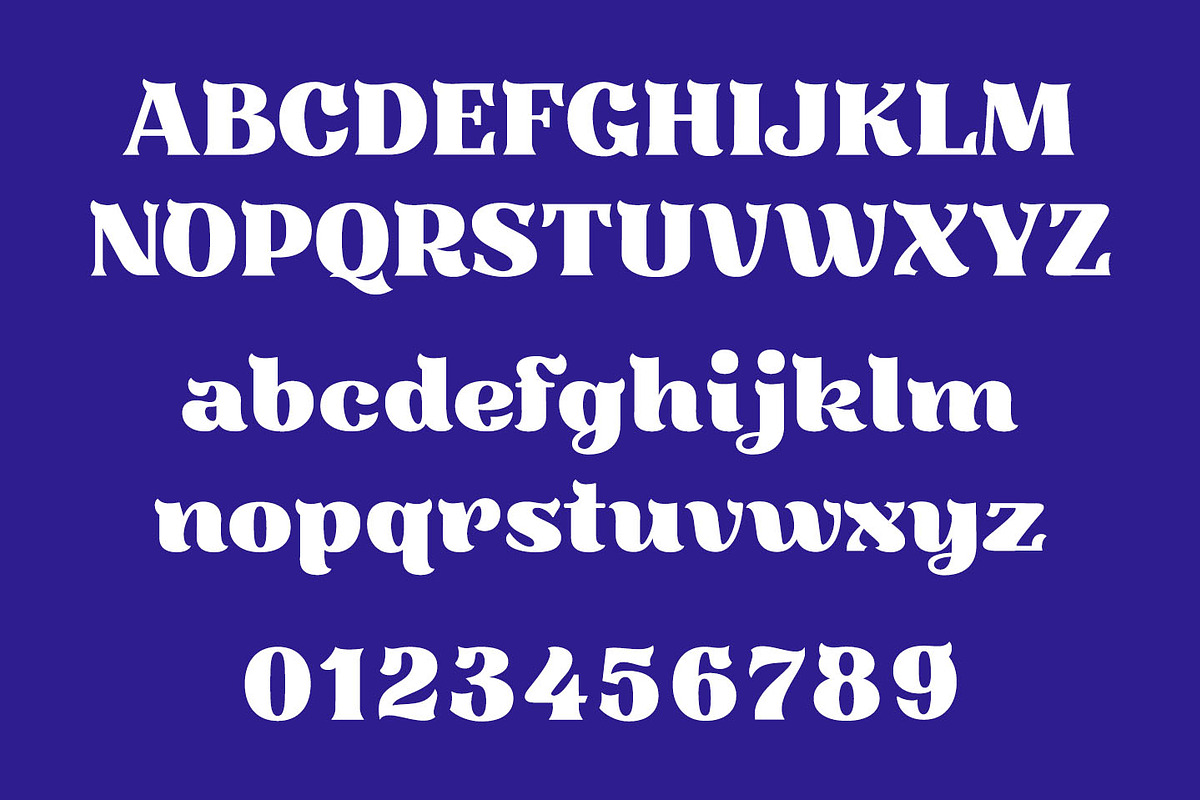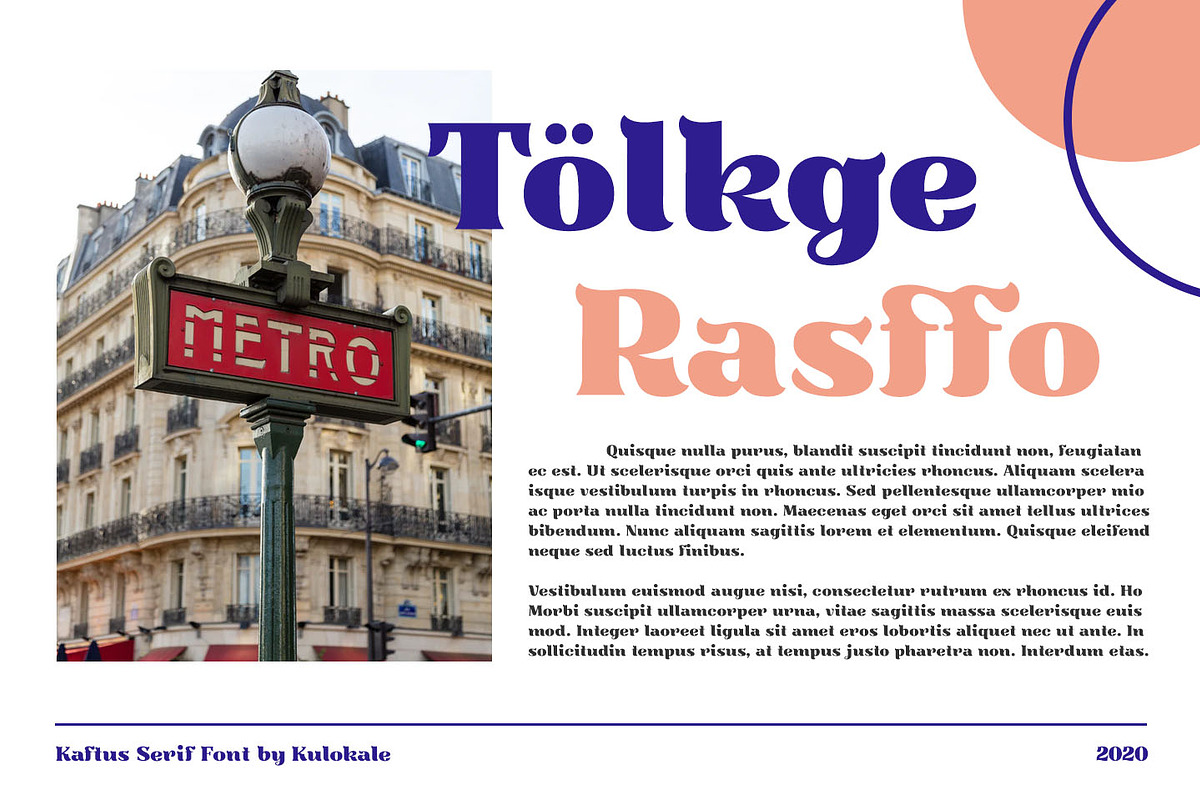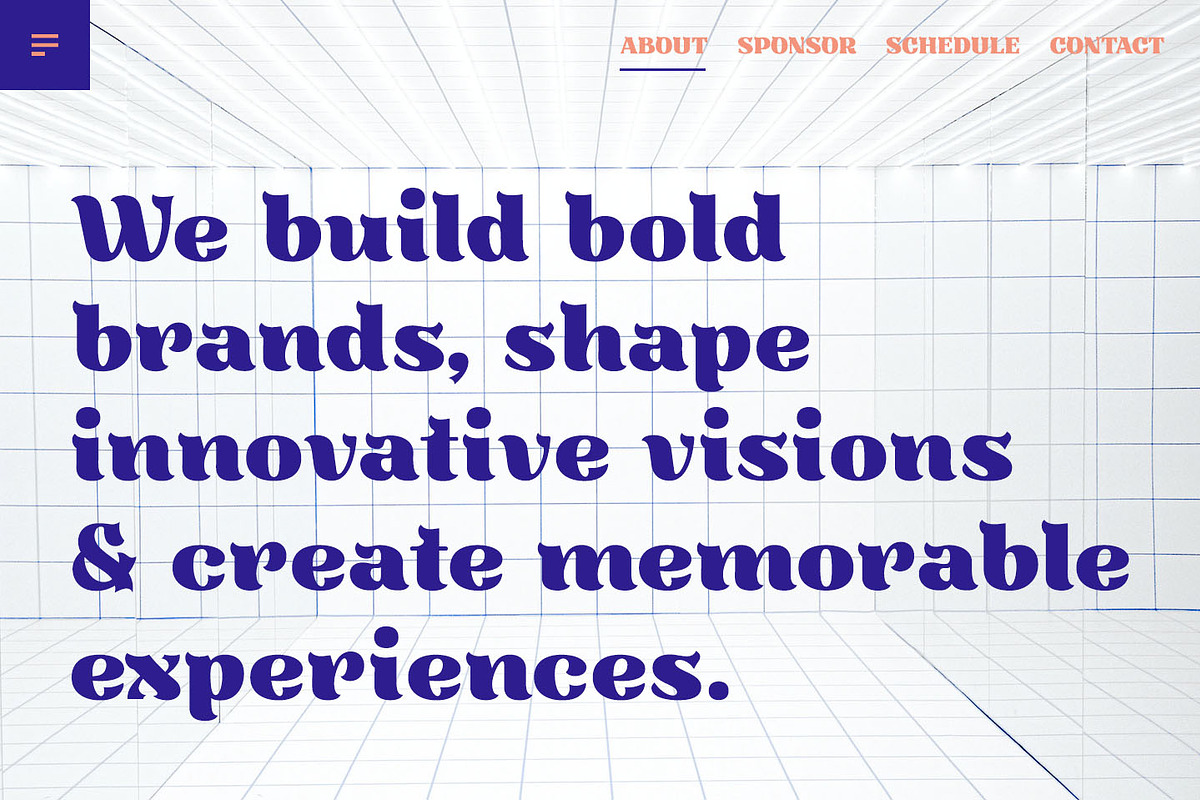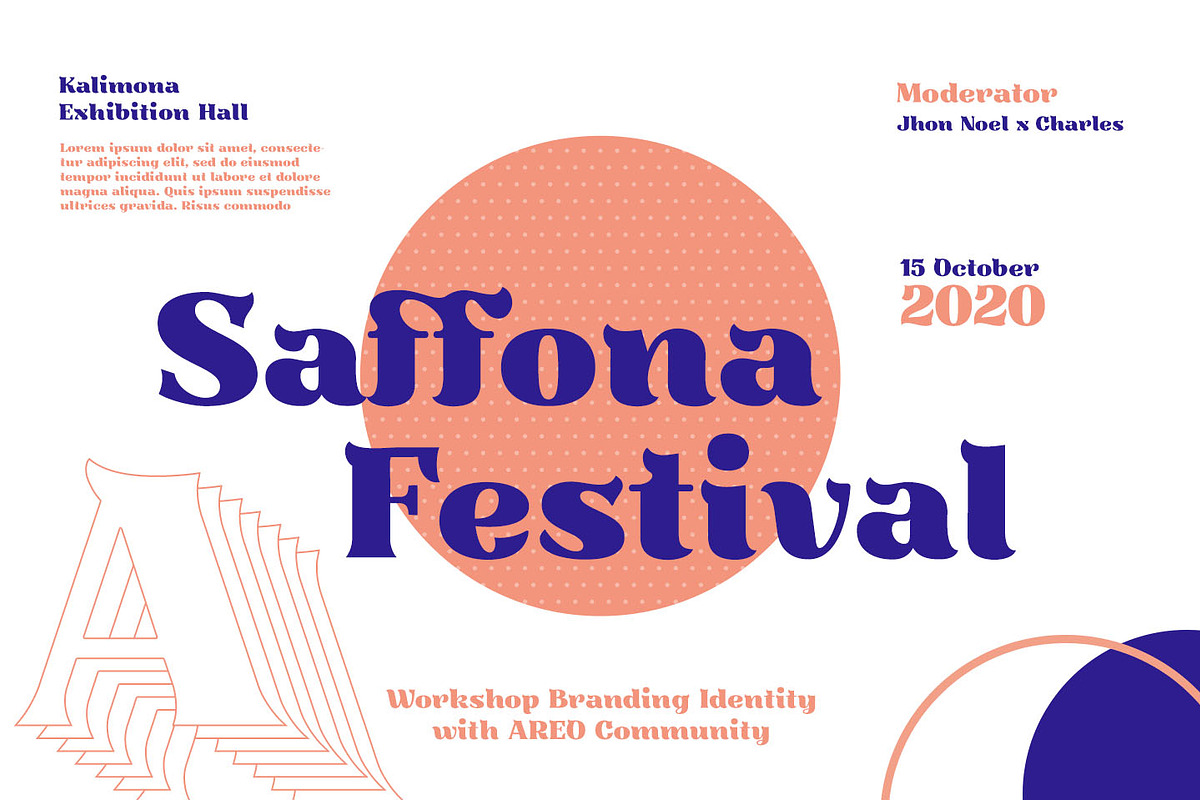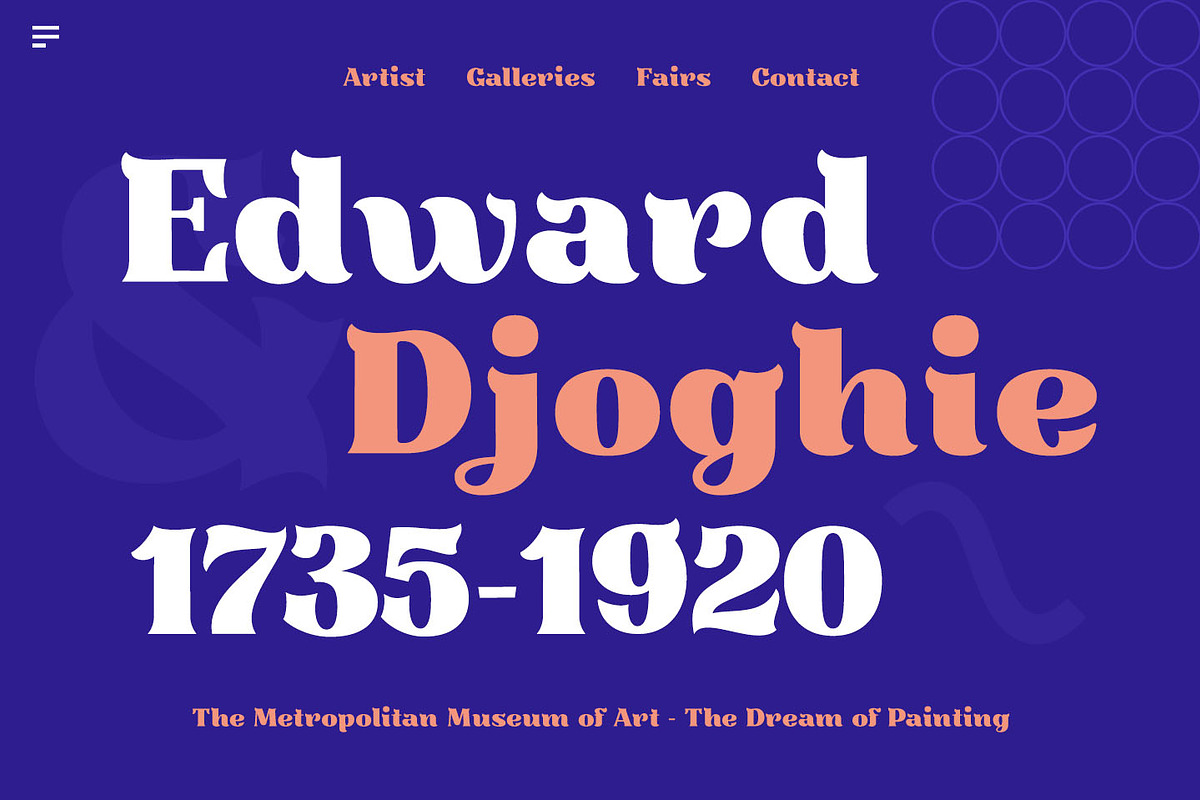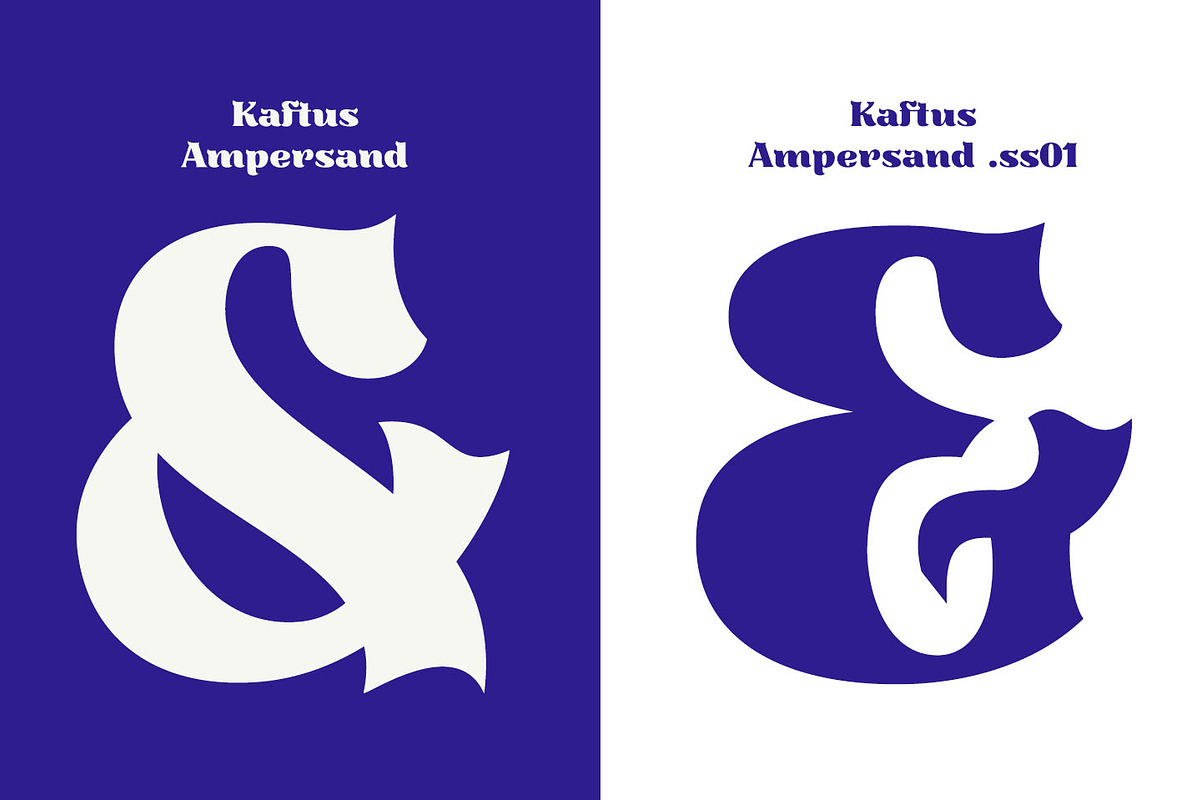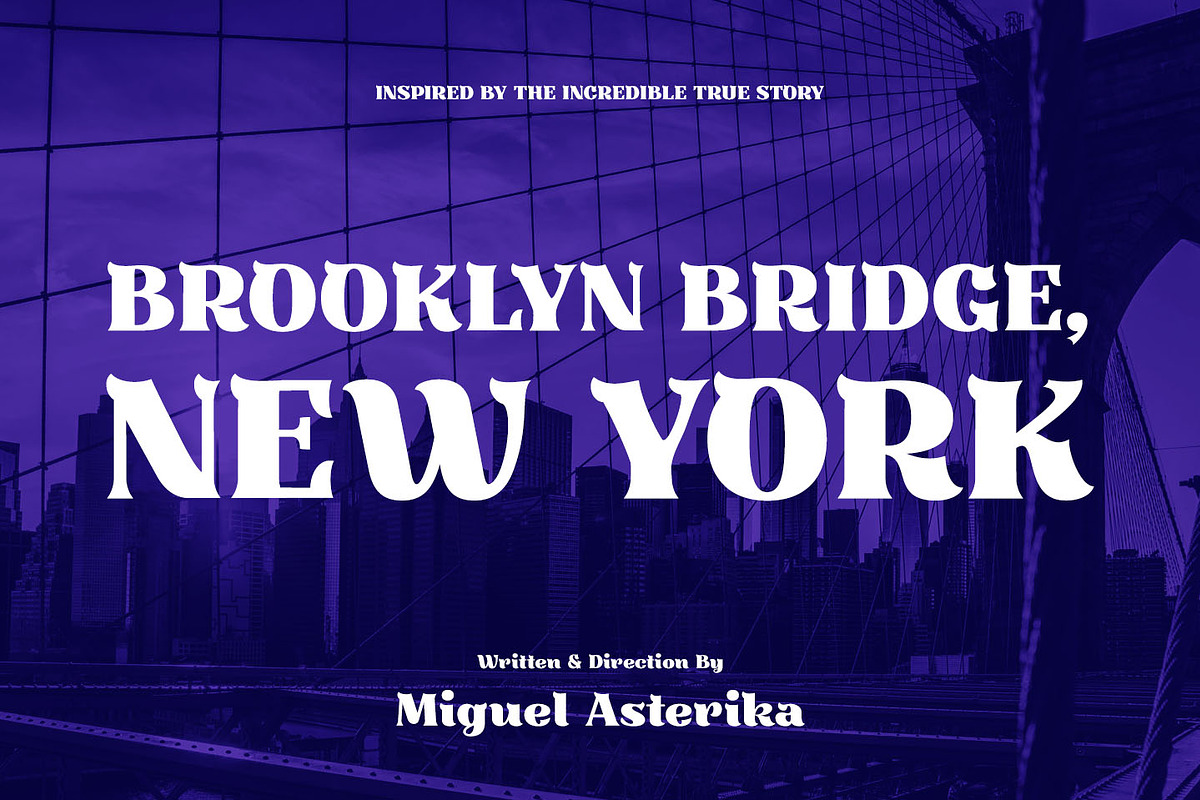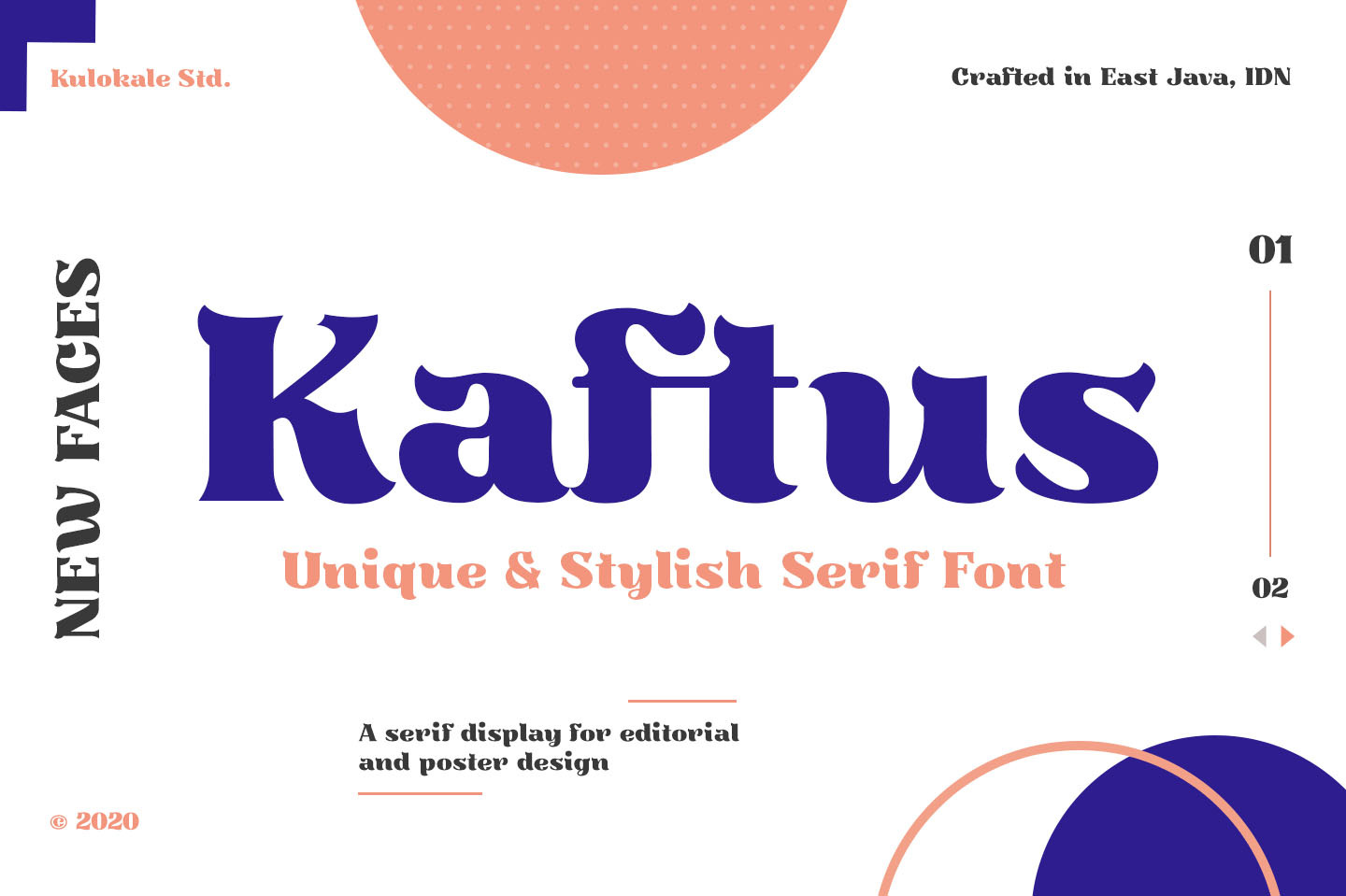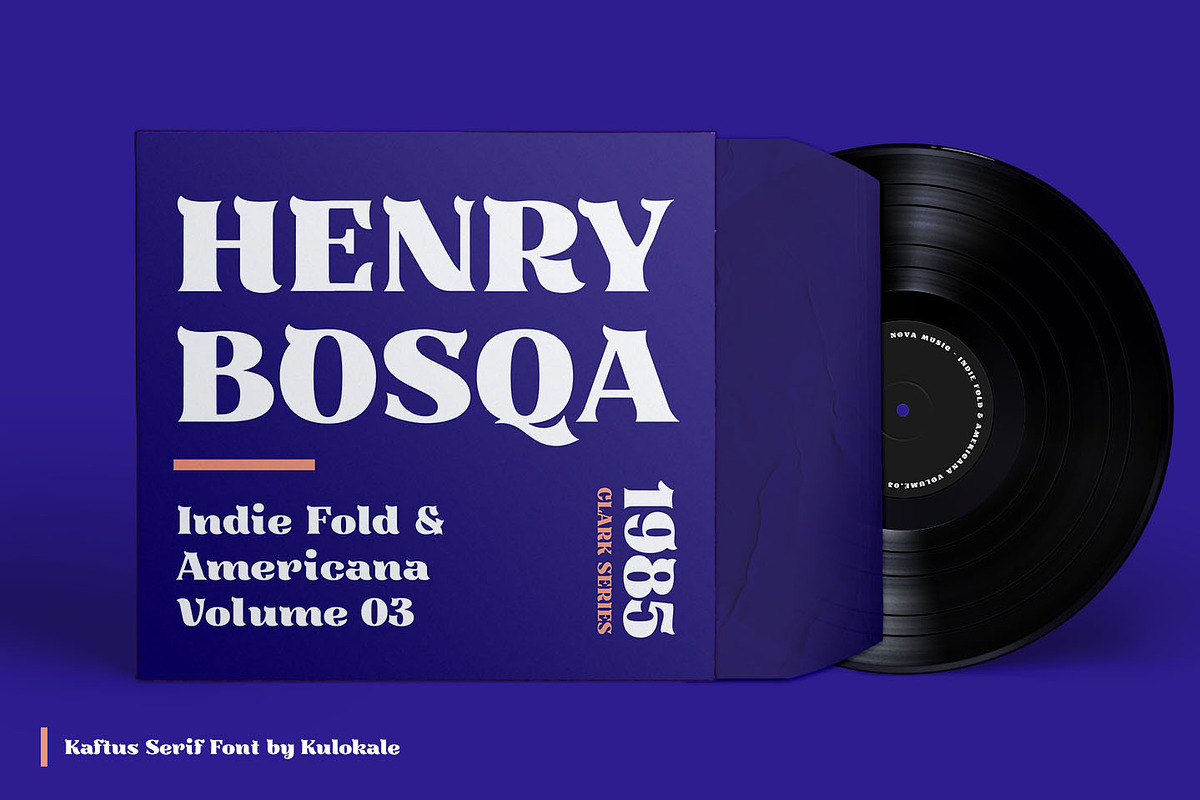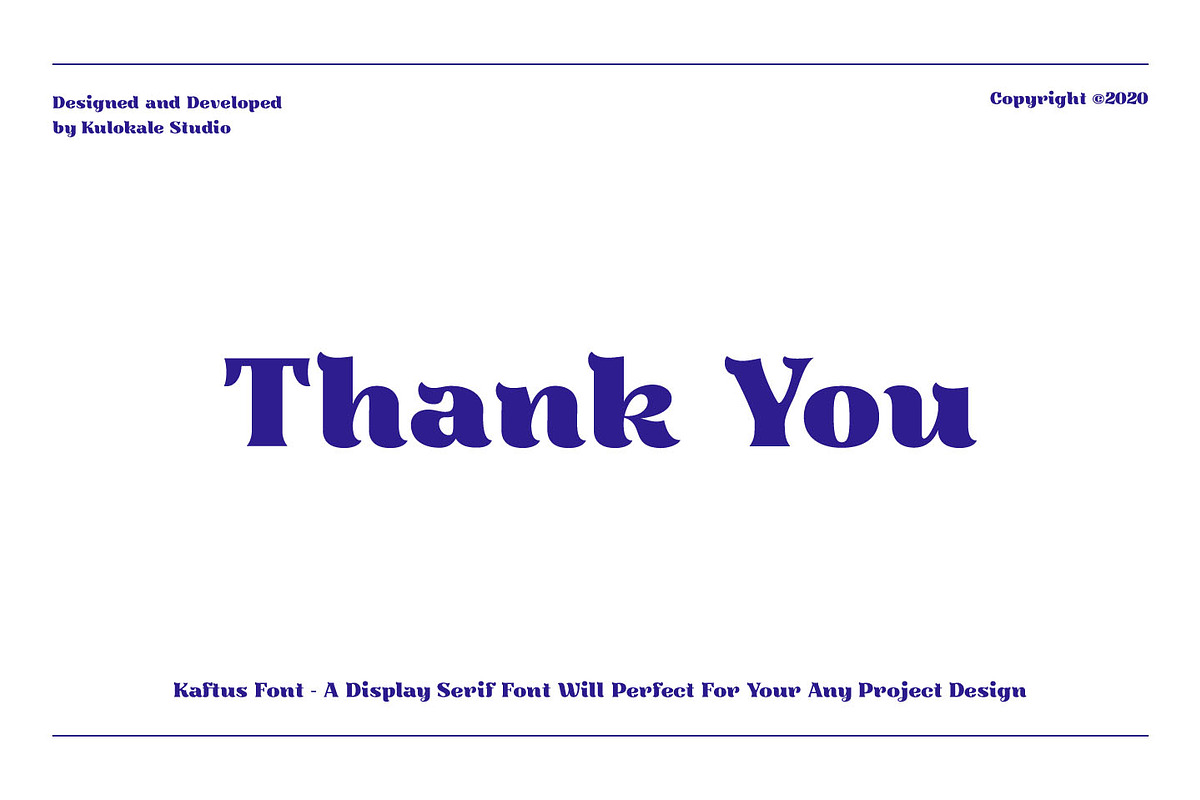
Kaftus Display Serif Font
Kaftus is a unique and stylish serif font. Kaftus is well-suited for advertising, branding, logotypes, packaging, titles, headlines and editorial design.